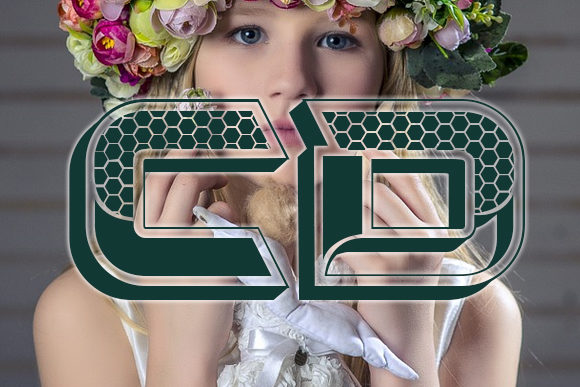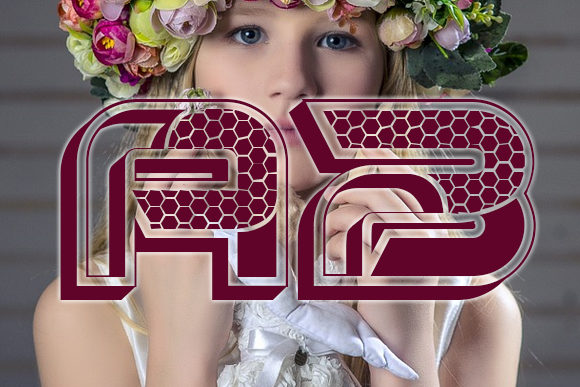
The Bambola Font: A Decorative Dream Come True for Designers
An Honest Review of Bambola Font
What I Love About Bambola Font
- ✨ Unique and eye-catching design: The Bambola font has a distinctive look that will make your designs stand out from the crowd.
- ✅ Highly versatile: This font can be used for a wide range of projects, from posters and flyers to invitations and packaging.
- 🎨 Great for creative projects: The Bambola font is perfect for designers, crafters, and creative hobbyists who want to add a touch of personality to their work.
While the Bambola font is amazing, there are a few things to keep in mind: 🤔
- ⚠️ Legibility at small sizes: Like many decorative fonts, the Bambola font can be difficult to read at small sizes. It’s best to use it at larger sizes, such as 24 points or more.
- ⚠️ Limited use in body text: While the Bambola font is great for headlines and titles, it’s not the best choice for body text. It’s better to use a clear, sans-serif font for longer blocks of text.
The Backstory of Bambola Font
The Bambola font was designed by a talented type designer who was inspired by the intricate details of traditional Italian posters. The font was created to evoke a sense of nostalgia and playfulness, while also being highly legible and versatile. Today, the Bambola font is a popular choice among designers and crafters who want to add a touch of personality to their work.
| What is the Bambola font best used for? | The Bambola font is best used for creative projects, such as posters, flyers, invitations, and packaging. |
| Is the Bambola font suitable for body text? | No, the Bambola font is not suitable for body text. It’s best used for headlines and titles. |
| Is the Bambola font available in different styles? | Yes, the Bambola font comes in several different styles, including regular, bold, and italic. |